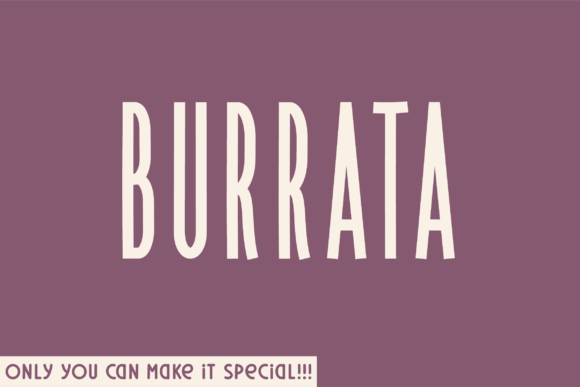
Introducing Burrata, the captivating sans serif font crafted to make your Instagram stories shine like never before! This extraordinary font, birthed from the creative mind of Hanna Bie, is not just a collection of letters; it's a gateway to a world of captivating storytelling, where every word dances with elegance and uniqueness.
At the heart of Burrata lies a revolutionary concept: each character is meticulously designed without altering a single node in its indentation. This groundbreaking approach grants Burrata an enchanting allure that sets it apart from the mundane. The result is a font that breathes life into your stories, transforming them into captivating works of art that demand attention.
Dive into the world of Burrata and discover a font that effortlessly complements your every creative whim. Whether you're crafting heartfelt quotes to touch souls, jotting down thoughts and ideas, designing t-shirts that speak volumes, or embarking on any product design venture, Burrata is your perfect partner. Its versatility knows no bounds, allowing you to weave magic across a myriad of platforms and mediums.
With Burrata, you'll find yourself immersed in a symphony of beauty and functionality. Its characters, crafted with precision and care, dance across your screen, creating a visual masterpiece that captivates audiences instantly. Your Instagram stories will transform into captivating narratives, drawing viewers into your world with an irresistible charm.
But Burrata is more than just a pretty face; it's a font infused with emotion, power, and personality. Its unique design evokes a sense of elegance, sophistication, and playfulness that resonates with your audience on a deeper level. With Burrata, your stories become more than just visual content; they become emotional journeys that leave an indelible mark on hearts and minds.
Don't settle for ordinary fonts that blend into the background. Embrace the magic of Burrata and watch your Instagram stories soar to new heights of engagement and impact. Let your creativity flourish as you harness the power of this exceptional font, crafted specifically to turn your stories into unforgettable experiences.